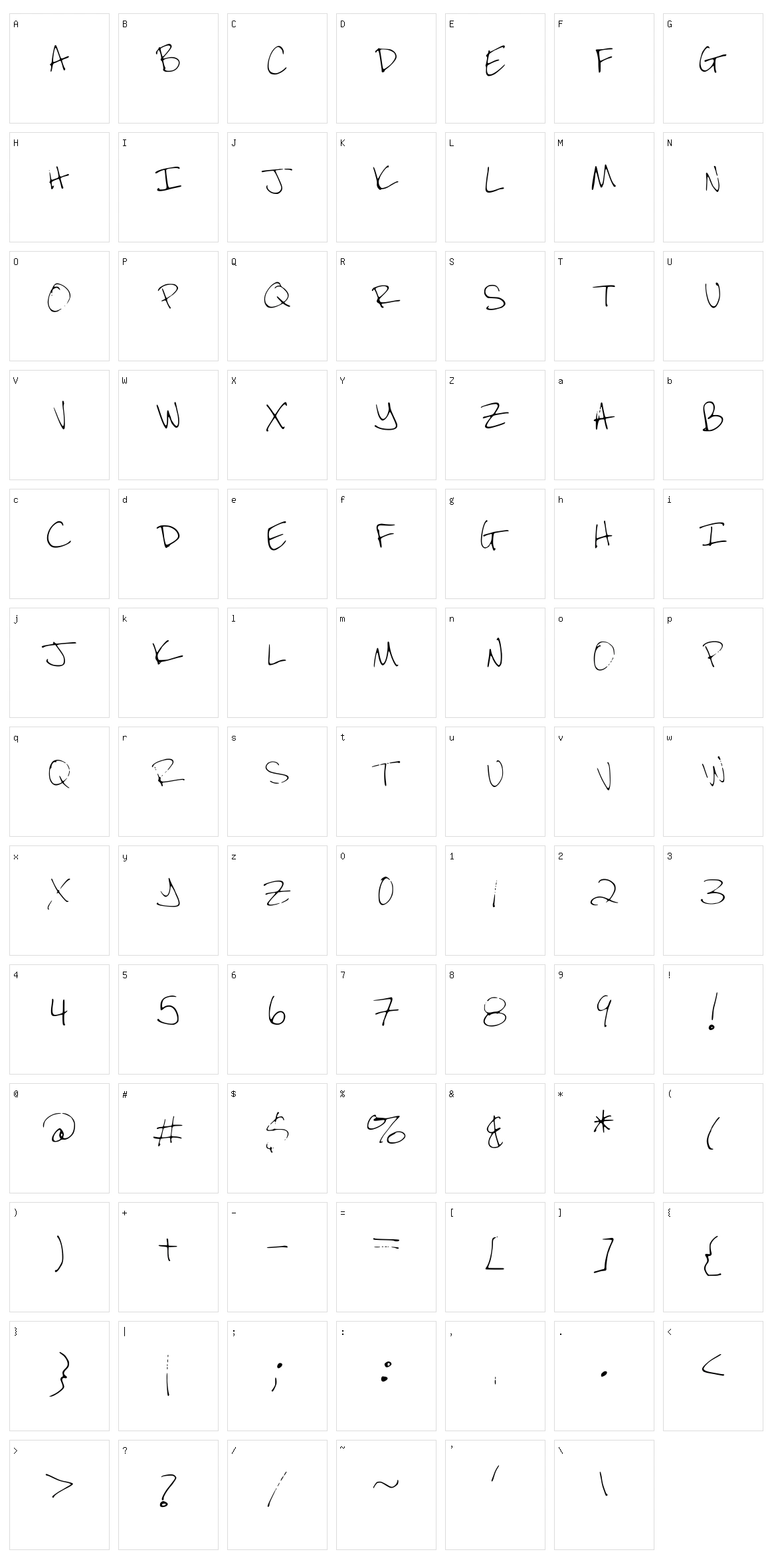
The free font Brandeez Font is carefully designed by Brandi Stansbury, showcasing a thoughtful balance of creativity and usability and falls under the Script font style. When you download the ZIP file, it contains only 23.92 KB of font files, making it lightweight and quick to download. Please review the license details below to understand permitted usage and distribution rights. If license information is not available, we recommend using this font for personal projects only or contacting the author directly for commercial usage permissions.